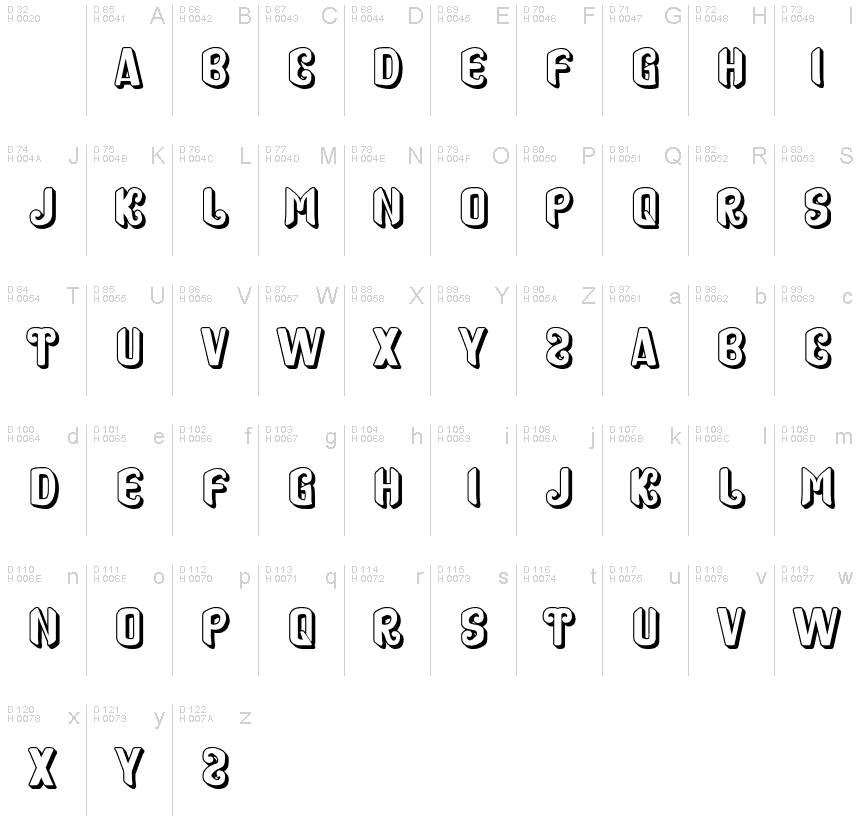
Salvadora Hollow Regular
Salvadora Hollow is a bold display font designed by Vladimir Nikolic. With its striking curves and sharp edges, this typeface is perfect for projects that require a strong visual impact. Its unique design makes it suitable for a variety of creative projects, including logos, headlines, posters, and packaging. The bold weight of Salvadora Hollow gives it an authoritative presence that demands attention. Whether you're designing a brand identity or creating eye-catching graphics for social media, Salvadora Hollow is the perfect typeface to help you stand out from the crowd.